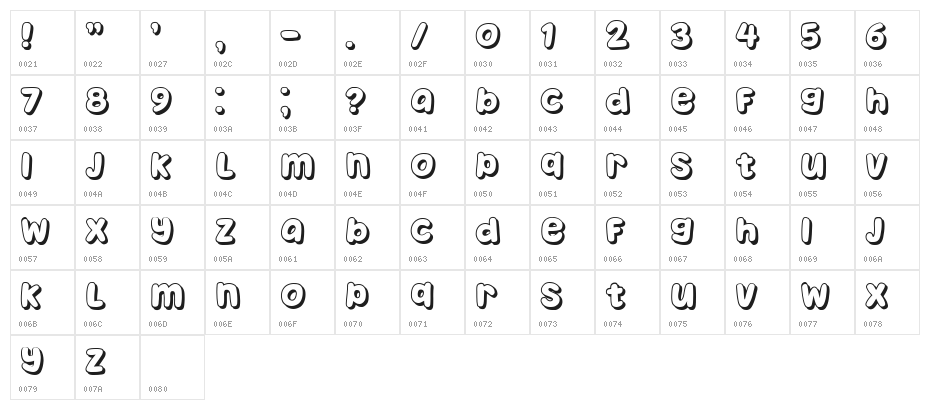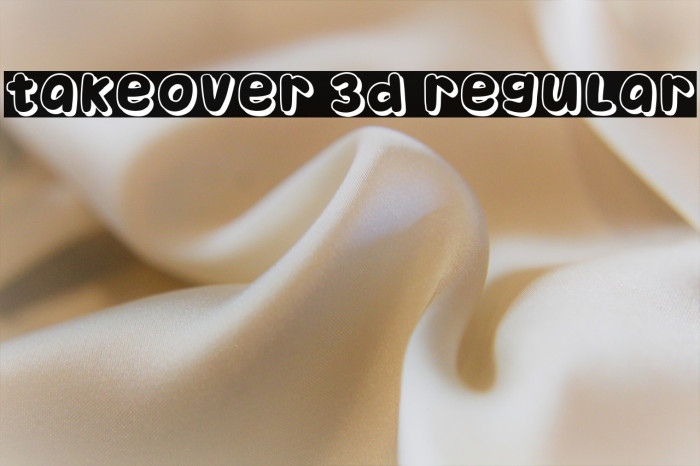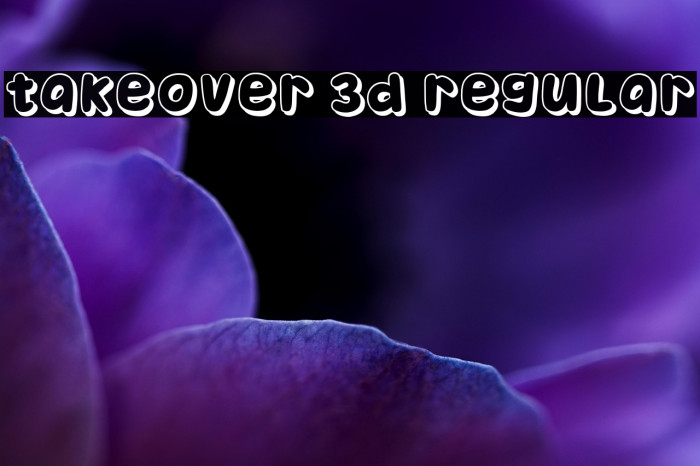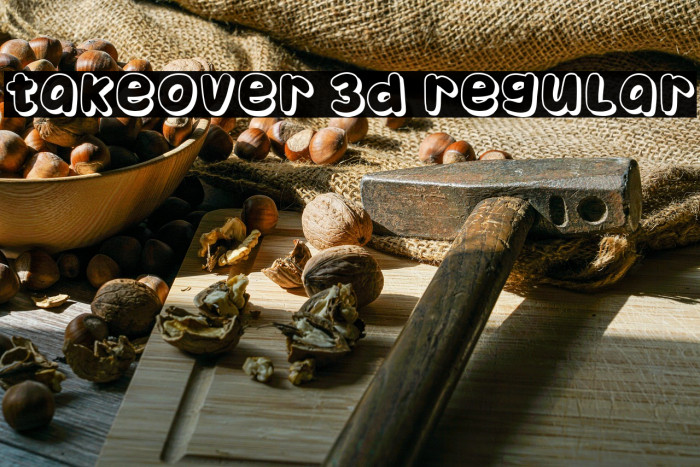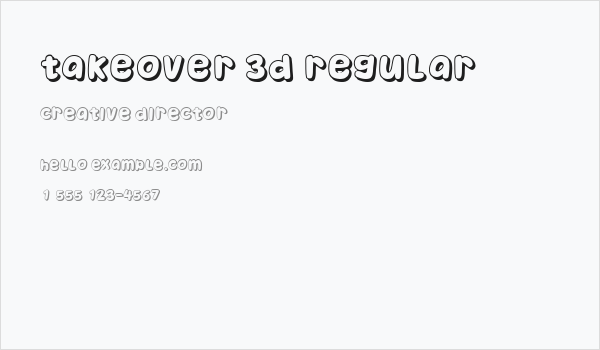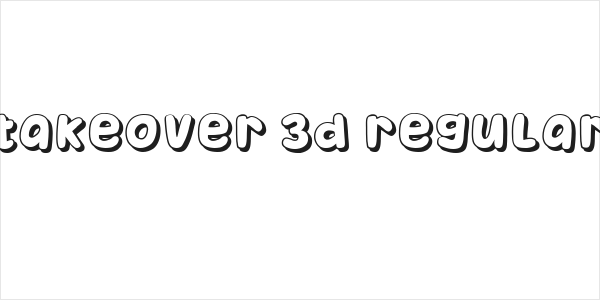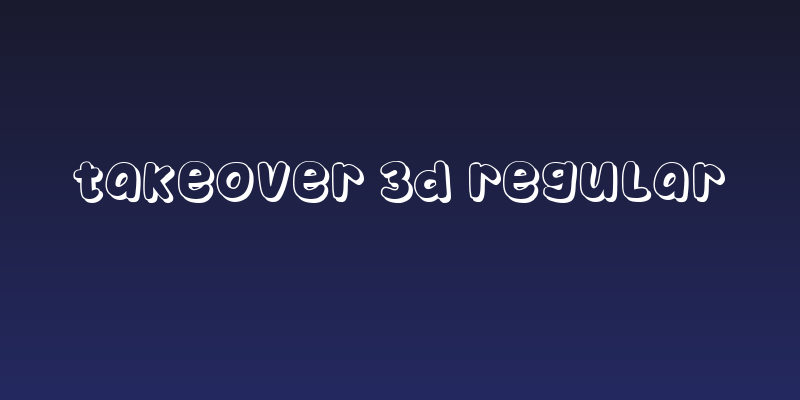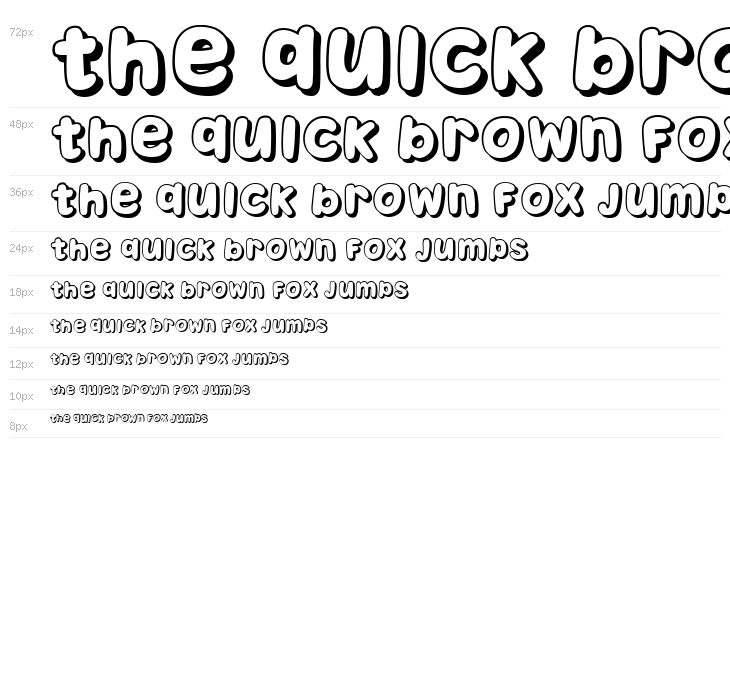
Takeover 3D Regular Font
Takeover 3D Regular Description
This playful and bold font features a three-dimensional effect that gives each character a distinct shadow, creating a sense of depth and movement. The rounded edges and thick strokes contribute to its friendly and approachable appearance, making it ideal for designs that aim to capture attention and convey a sense of fun. The font maintains consistent proportions across uppercase, lowercase, and numeral characters, ensuring readability while adding a unique visual flair. Its whimsical style is further enhanced by the inclusion of special characters, which seamlessly integrate with the overall design.
| Overall Style | Playful, Modern |
| Proposed Projects | Ideal for children's book covers, playful branding, event posters, and creative social media graphics. |